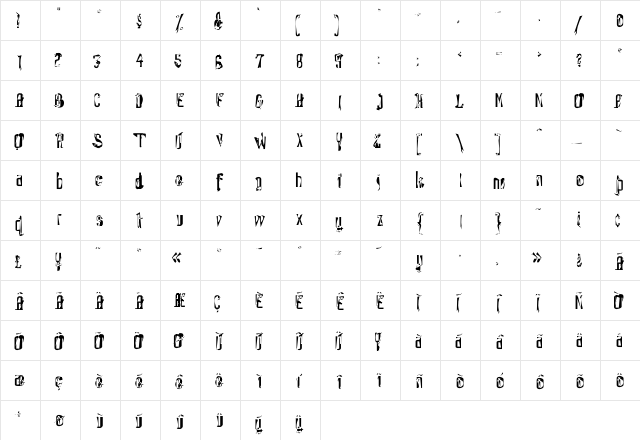
MorireSolid Regular
Design Context for MorireSolid Typeface
MorireSolid is a composed and adaptable typeface that performs quietly and consistently across a wide range of design contexts.